Unlock the secrets to using the US currency font like a pro! This guide helps you identify its key characteristics, understand its historical context, and apply it effectively for impactful design. Learn to choose similar fonts for digital use, ensuring clarity and a touch of classic elegance in your projects.
Mastering the US Currency Font: Genius Tips for Designers
Ever noticed the distinctive typeface on US dollar bills? It’s more than just letters; it’s a piece of design history that exudes trust, stability, and a bit of old-school gravitas. For designers, especially those working with branding, logos, or anything needing a touch of classic authority, understanding this unique font can be a game-changer. But where do you even begin to identify and use something so specific? Many find themselves frustrated, unable to pinpoint what makes that lettering so special or how to find something similar for their own projects. Don’t worry! We’re going to break down the US currency font, reveal its subtle nuances, and equip you with practical tips to leverage its essence in your designs, making your work stand out with confidence and style. Let’s dive in!
What Exactly is the “US Currency Font”?
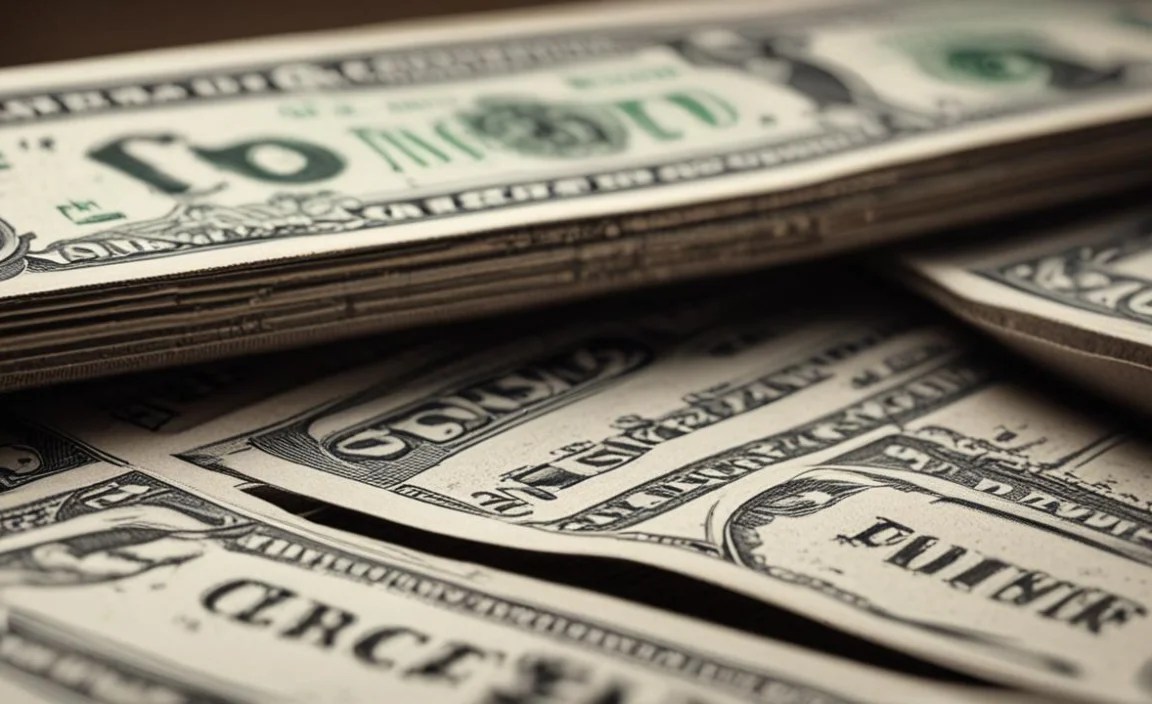
When we talk about the “US currency font,” we’re generally referring to the typeface used for the denominations and other text on U.S. banknotes. For a long time, this has been largely based on a style that is very similar to a classic serif font. The specific typeface has evolved, but the core aesthetic remains consistent: a strong, readable, and traditional look. This isn’t just any font; it’s designed for maximum legibility and to convey a sense of permanence and reliability.
The Bureau of Engraving and Printing (BEP), which is part of the U.S. Department of the Treasury, is responsible for the design and production of U.S. currency. They utilize specific typography to ensure that important information is clear to everyone. The chosen fonts are robust, designed to withstand wear and tear, and printed with precision. This makes them inherently suited for conveying authority.
A Brief History of Currency Typography
The typography on U.S. currency has a rich history, evolving alongside printing technology and design trends. Early banknotes often featured ornate, sometimes highly decorative, lettering. As the need for clarity and standardization grew, the designs shifted towards more legible typefaces.
During the mid-20th century, a significant shift occurred towards cleaner, more modern designs. The font family that became synonymous with modern U.S. currency, particularly for the numerals and key text elements, is often associated with variations of the OCR (Optical Character Recognition) or similar industrial-style fonts. However, for the descriptive text and denominations, a more traditional serif approach has been favored historically. This blend has created a unique visual identity for American money.
It’s important to note that the official Treasury Department may not officially brand a single font as “the US currency font.” Instead, it’s a recognized style that has been consistently applied and adapted over the years. For instance, the primary typeface used for the numerical denominations on many modern bills has strong similarities to fonts like OCR-A or OCR-B, designed for machine readability. However, the letterforms and stylistic elements for the named values (like “ONE DOLLAR” or “TEN DOLLARS”) often lean towards classic serif styles that offer a sense of heritage.
Identifying Key Characteristics of the US Currency Font
To truly “master” the US currency font, you first need to understand its defining features. It’s not one single font, but rather a style that evokes a specific feeling. Here’s what to look for:
- Serifs: Many of the numbers and letters on U.S. currency exhibit clear, sturdy serifs – the small strokes at the ends of letterforms. These serifs contribute to readability and lend a classic, formal appearance.
- Chunky Numerals: The digits, especially for denominations, are often bold and somewhat condensed, designed to be easily scanned and recognized at a glance.
- High Readability: Regardless of stylistic choices, legibility is paramount. The font is clear, with well-defined strokes and ample spacing, ensuring it’s easy to read even under various conditions.
- A Sense of Authority: The overall impression is one of reliability, history, and officialdom. This comes from a combination of the typeface’s structure, its careful application, and its association with financial institutions.
- Monolinear Qualities (in some instances): While many serifs have variation in stroke width, some elements might appear more monolinear, meaning the strokes are of relatively uniform thickness. This is particularly true for the OCR-style digits.
Why is Understanding This Font Important for Designers?
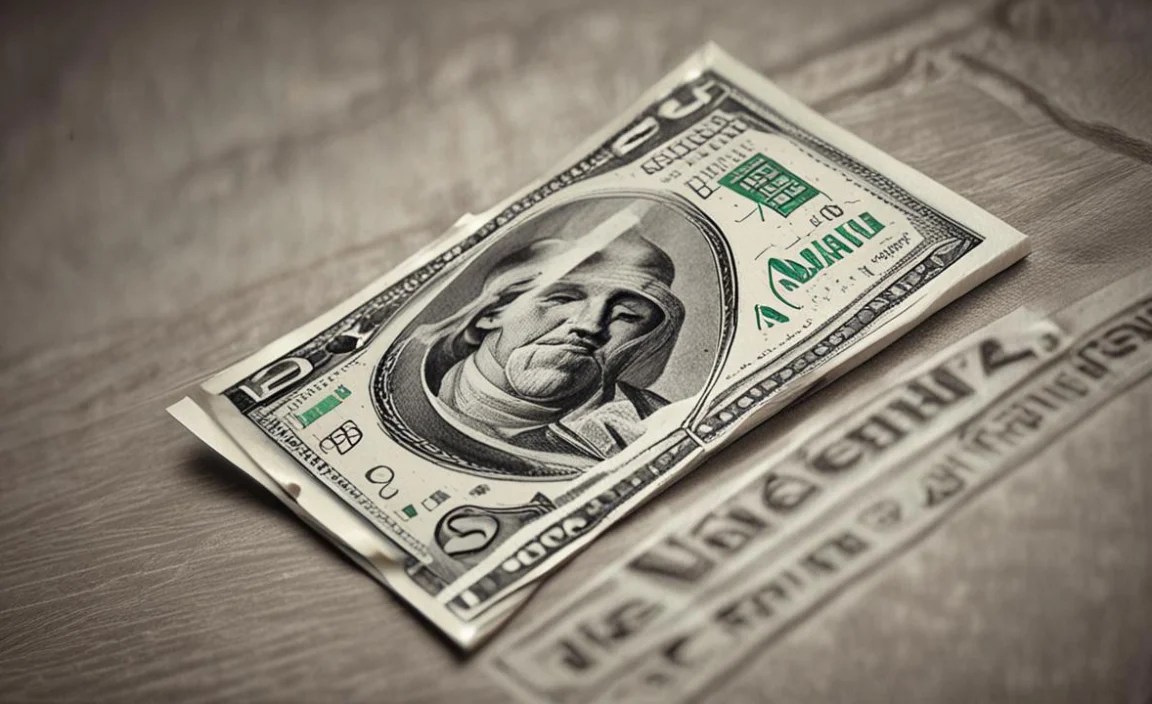
Even if you’re not designing currency, grasping the principles behind its typeface offers valuable insights. Designers often aim to instill specific feelings in their work, such as trust, tradition, or authority. The US currency font, through its historical usage and design choices, expertly communicates these qualities.
- Building Trust: Using typography that echoes the familiarity and perceived integrity of currency can subtly enhance brand trust.
Conclusion: Design with Confidence and Classic Style
Mastering the US currency font isn’t about cloning it, but about understanding the principles it embodies: clarity, authority, and a touch of enduring classicism. By identifying its key characteristics and exploring fonts that share its spirit, you can infuse your own design projects with a similar sense of trust and professionalism. Whether you’re crafting a brand identity, designing a website, or creating marketing collateral, drawing inspiration from the robust, legible, and authoritative typography of U.S. currency can set your work apart. Experiment with sturdy serifs for headlines, pair them with clean sans-serifs for body text, and always prioritize readability. Let this understanding empower you to make bolder, more confident design choices that resonate with timeless appeal and unshakeable credibility. Happy designing!